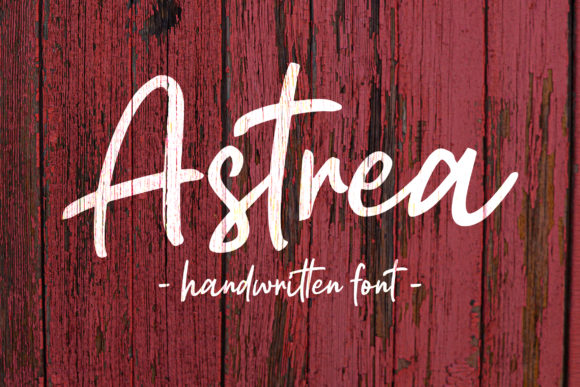
Introducing Astrea Font, a captivating script font family that breathes life into your digital creations. Astrea is the perfect choice for online magazines, adding a touch of charm and personality to your content. With its effortlessly flowing strokes and playful character, this font captivates readers, drawing them into your captivating stories and engaging articles.
Step into a world of limitless creativity with Astrea, where your words dance across the screen, leaving a trail of beauty and elegance. Weape Design, the mastermind behind this font, has crafted each letter with meticulous care, ensuring that every curve and swirl tells a tale of artistry.
Unleash your imagination and let Astrea transform your online magazine into a visual masterpiece. Its friendly and approachable nature makes it the ideal choice for lifestyle blogs, travelogues, fashion features, and any other content that seeks to connect with readers on a personal level.
With Astrea, your magazine will exude a sense of authenticity and warmth, inviting readers to embark on a journey of discovery and inspiration. Its handwritten style adds a human touch, making your content relatable and engaging.
Elevate your online presence with Astrea and watch your readership soar. This font is a magnet for attention, attracting readers who appreciate the finer things in life. Its timeless beauty transcends trends, ensuring that your magazine remains a beacon of style and sophistication for years to come.
Don't settle for ordinary fonts that fade into the background. Embrace Astrea and let your words take center stage. Experience the joy of creating content that resonates with your audience, leaving a lasting impression that keeps them coming back for more.